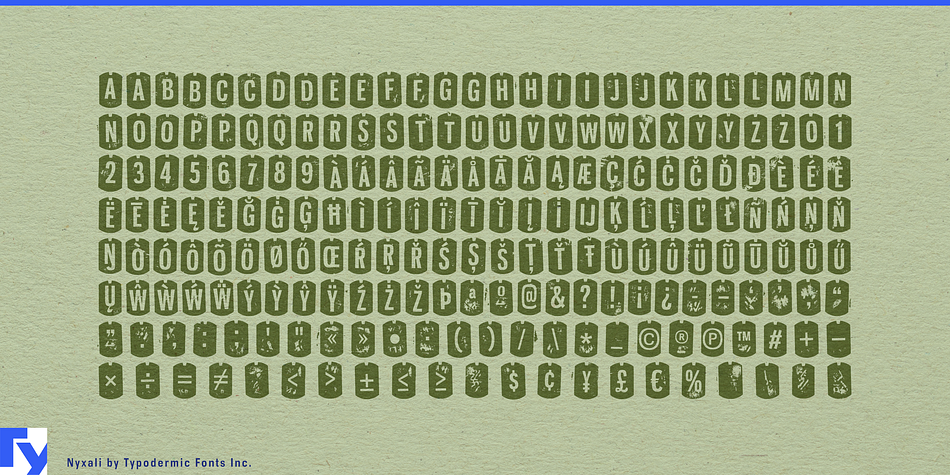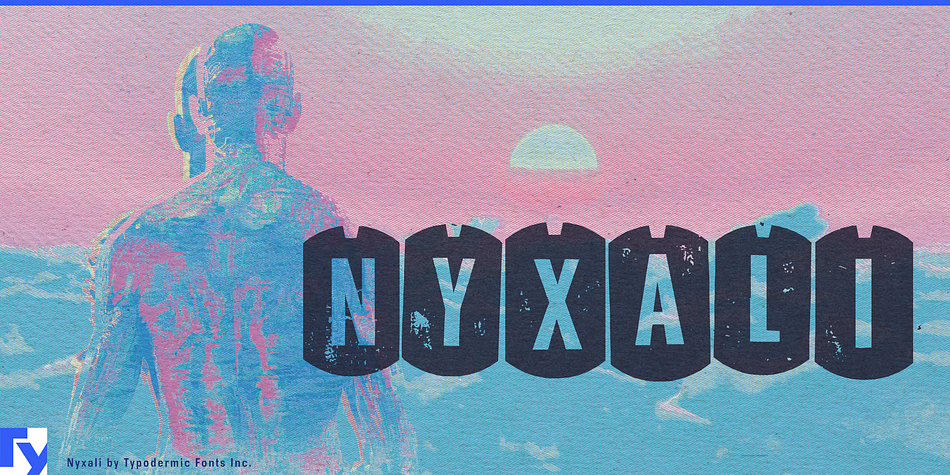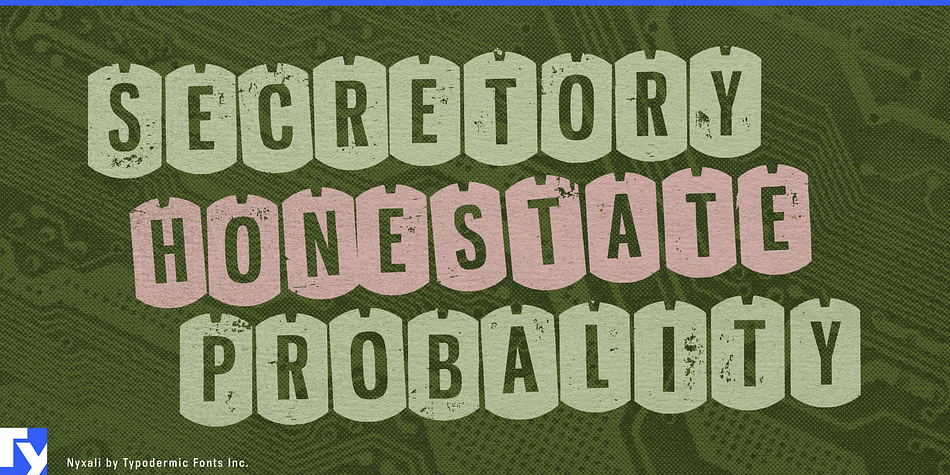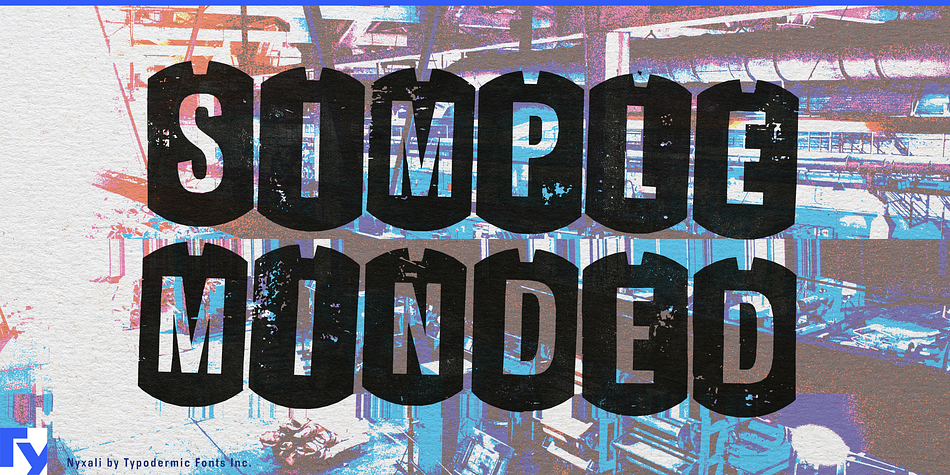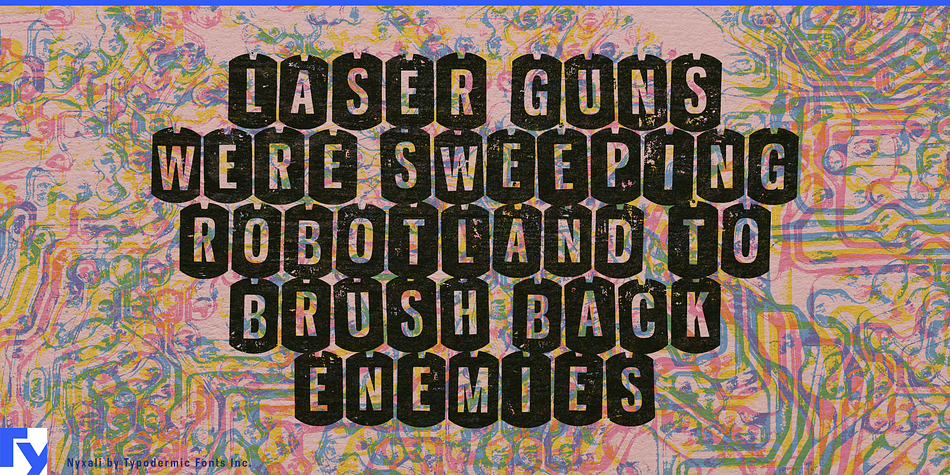
Nyxali is a grunge font published by Typodermic Fonts Inc.
Nyxali is a damaged metal stamped font in OpenType and Windows TrueType format. In OpenType savvy applications, letter pair autoligs help break up the monotony of obviously repeating letters.